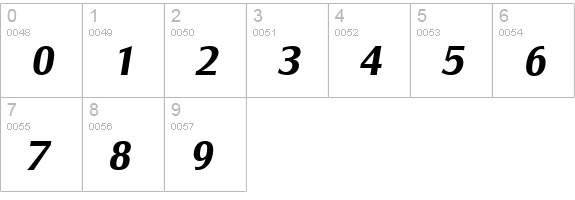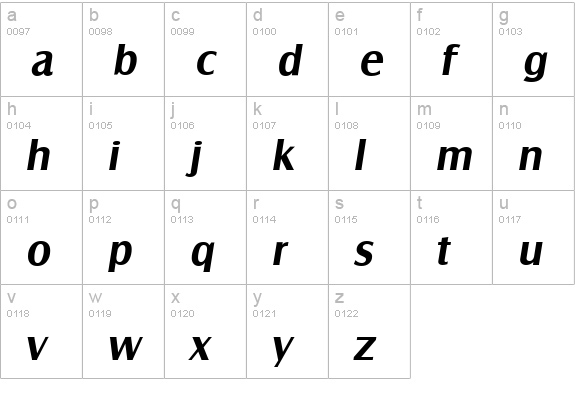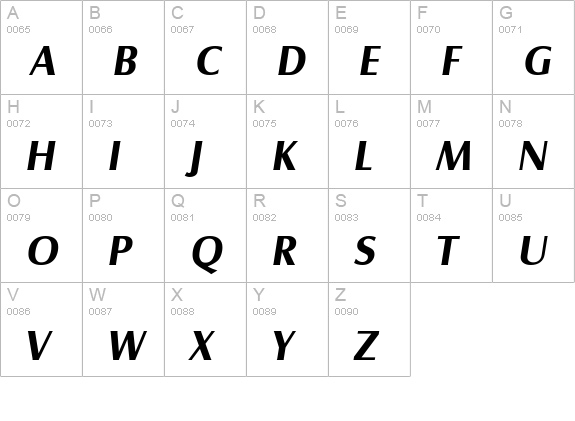
SalzburgSerial-BoldItalic is a dynamic and captivating font that exudes a sense of modernity and sophistication. Its bold and italic design gives a unique edge to any project, making it perfect for headlines, branding, and creative designs. The sleek lines and stylish curves of SalzburgSerial-BoldItalic add a touch of elegance to any text, elevating it to stand out from the crowd. The best part? SalzburgSerial-BoldItalic is available for free download at FontsMarket.com. This means you can easily access this stunning font to enhance your projects without any cost. Whether you're a designer looking to add flair to your work or a business owner aiming to make a statement with your branding, SalzburgSerial-BoldItalic is the perfect choice. Download it now and see how this distinctive font can transform your designs!